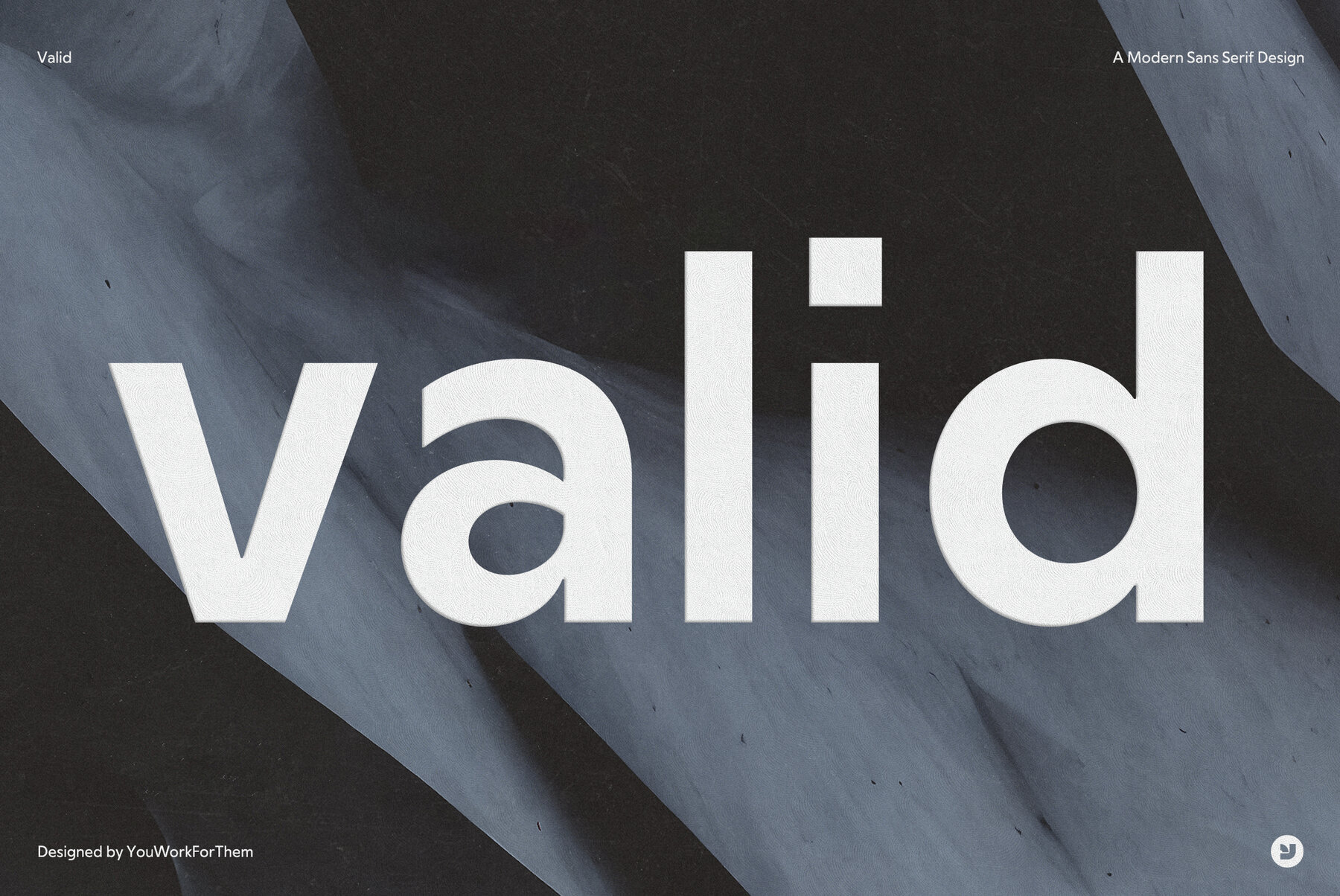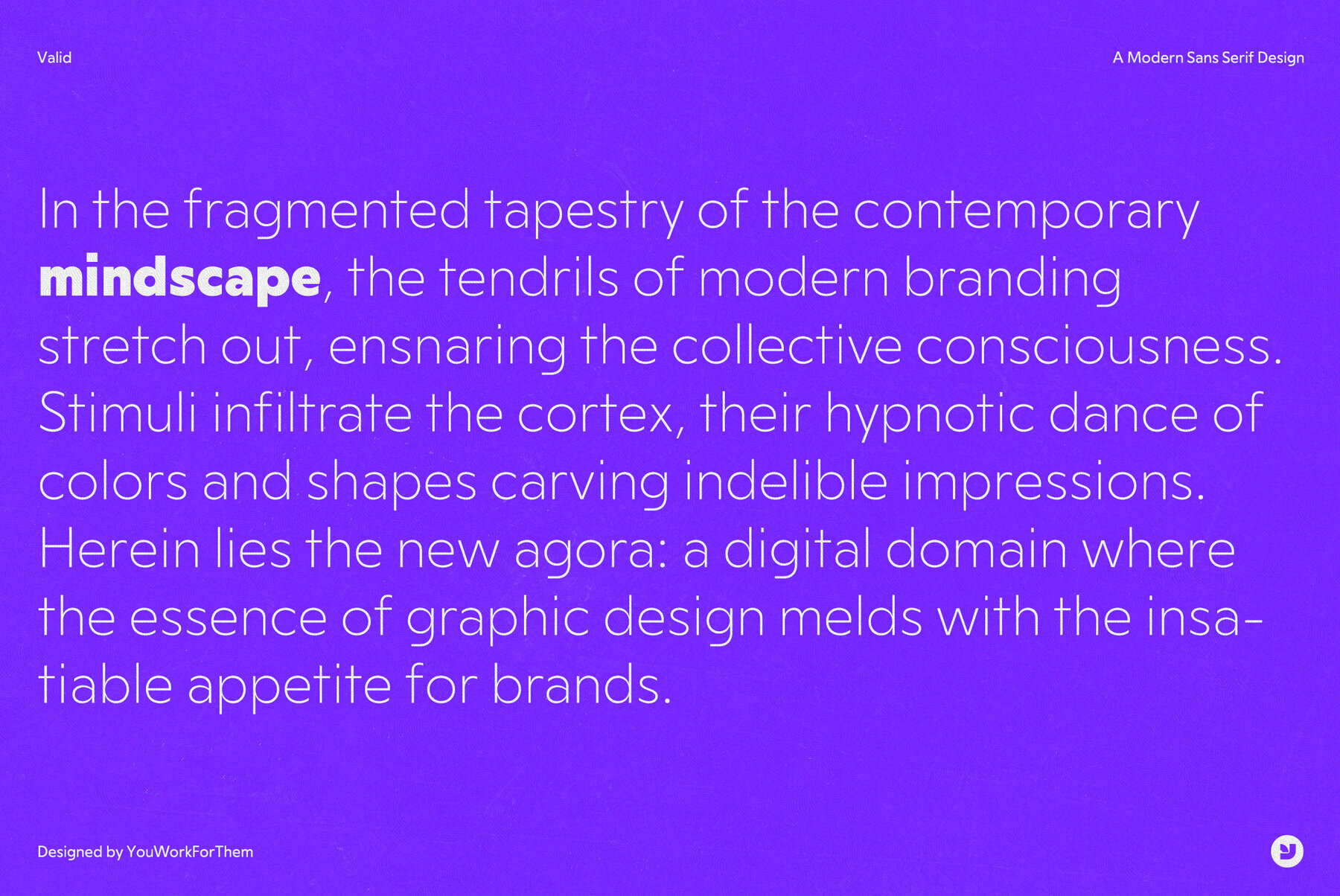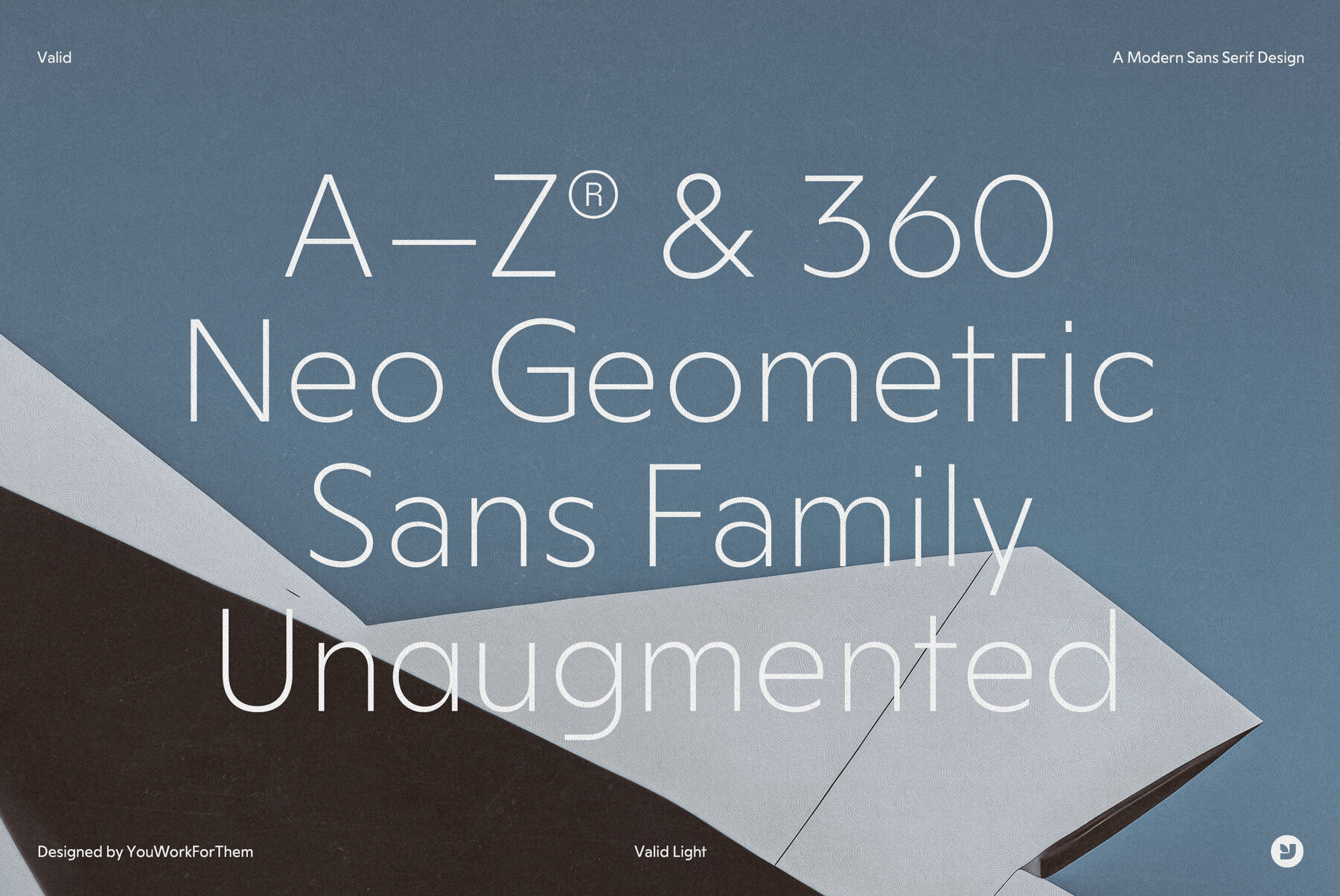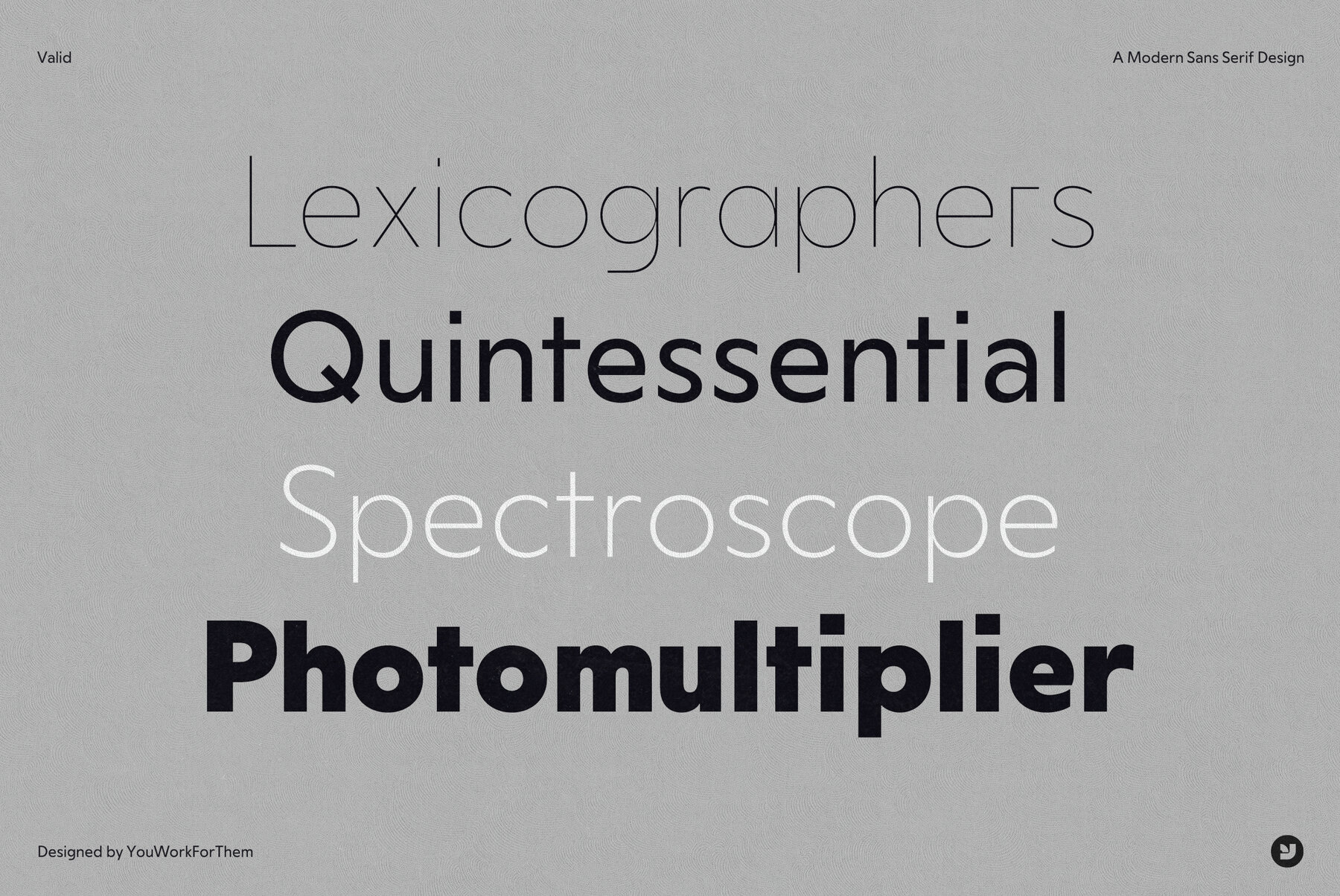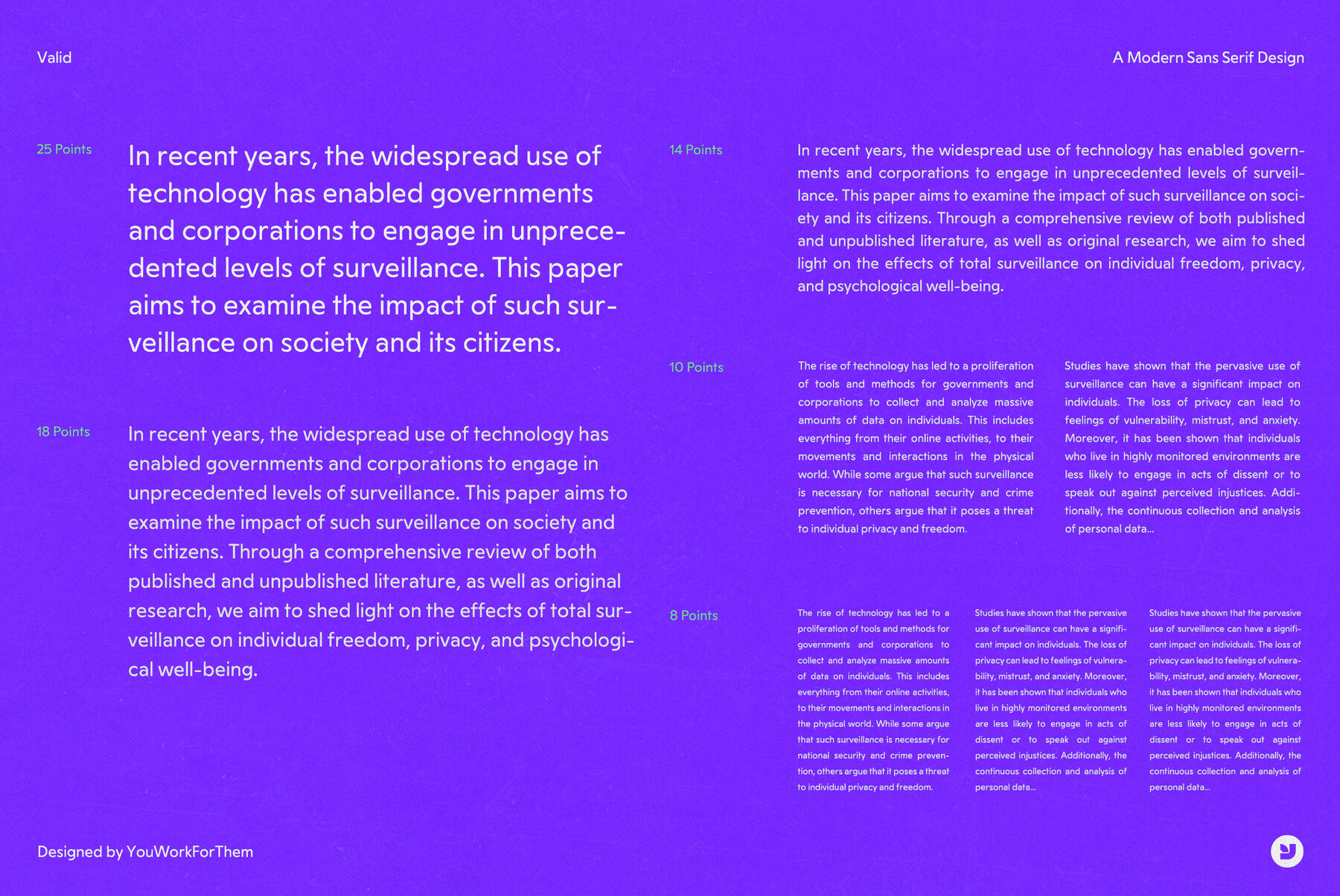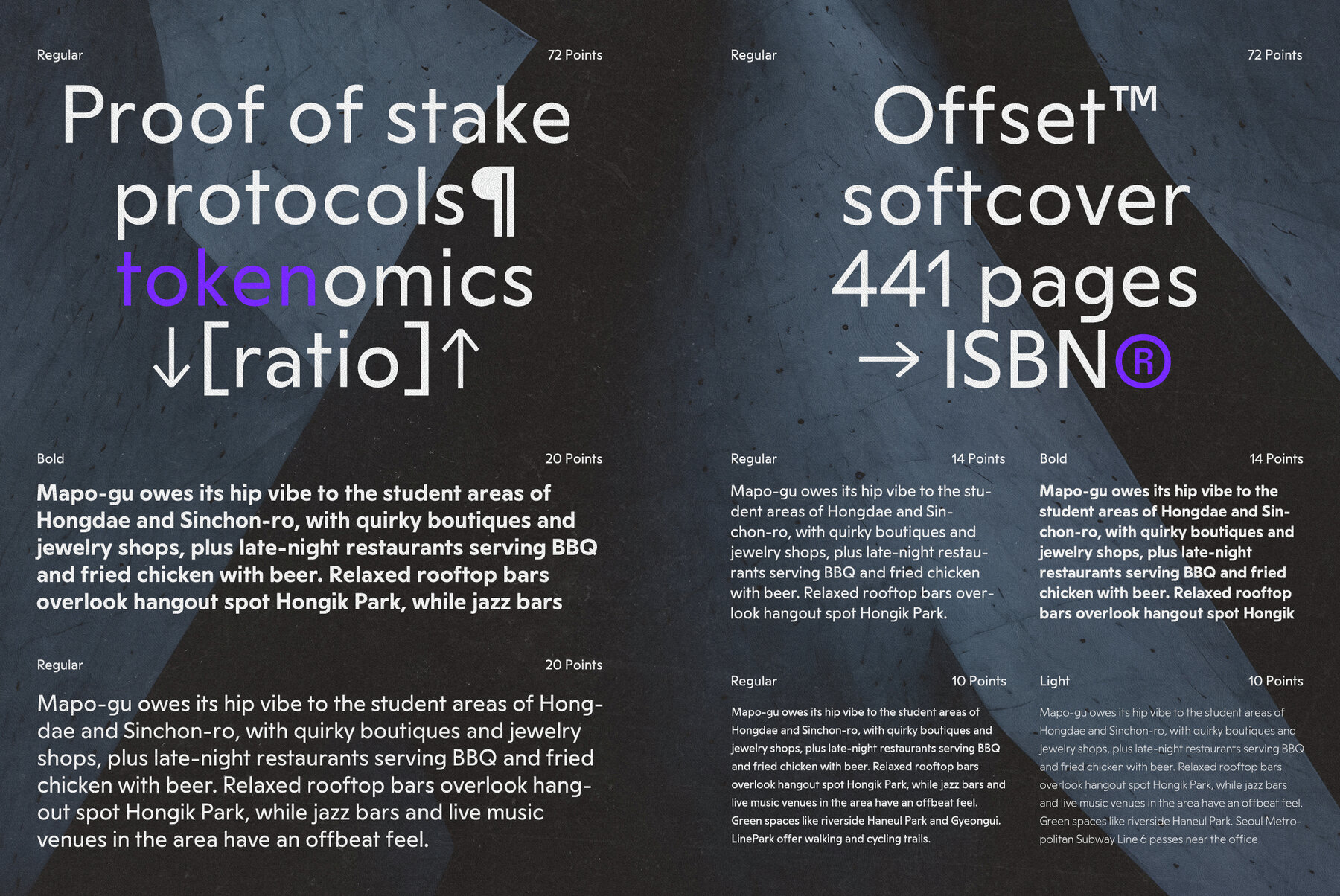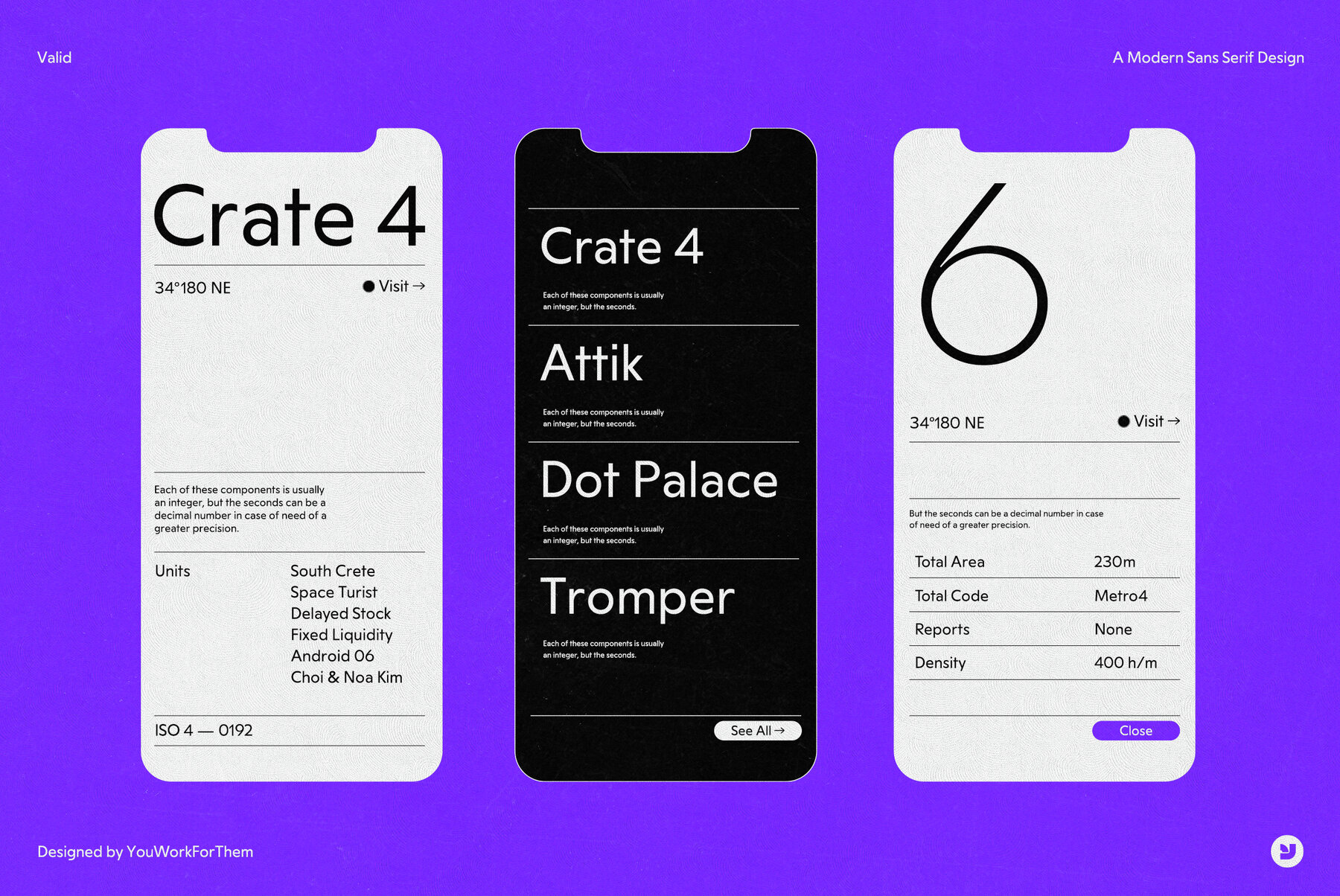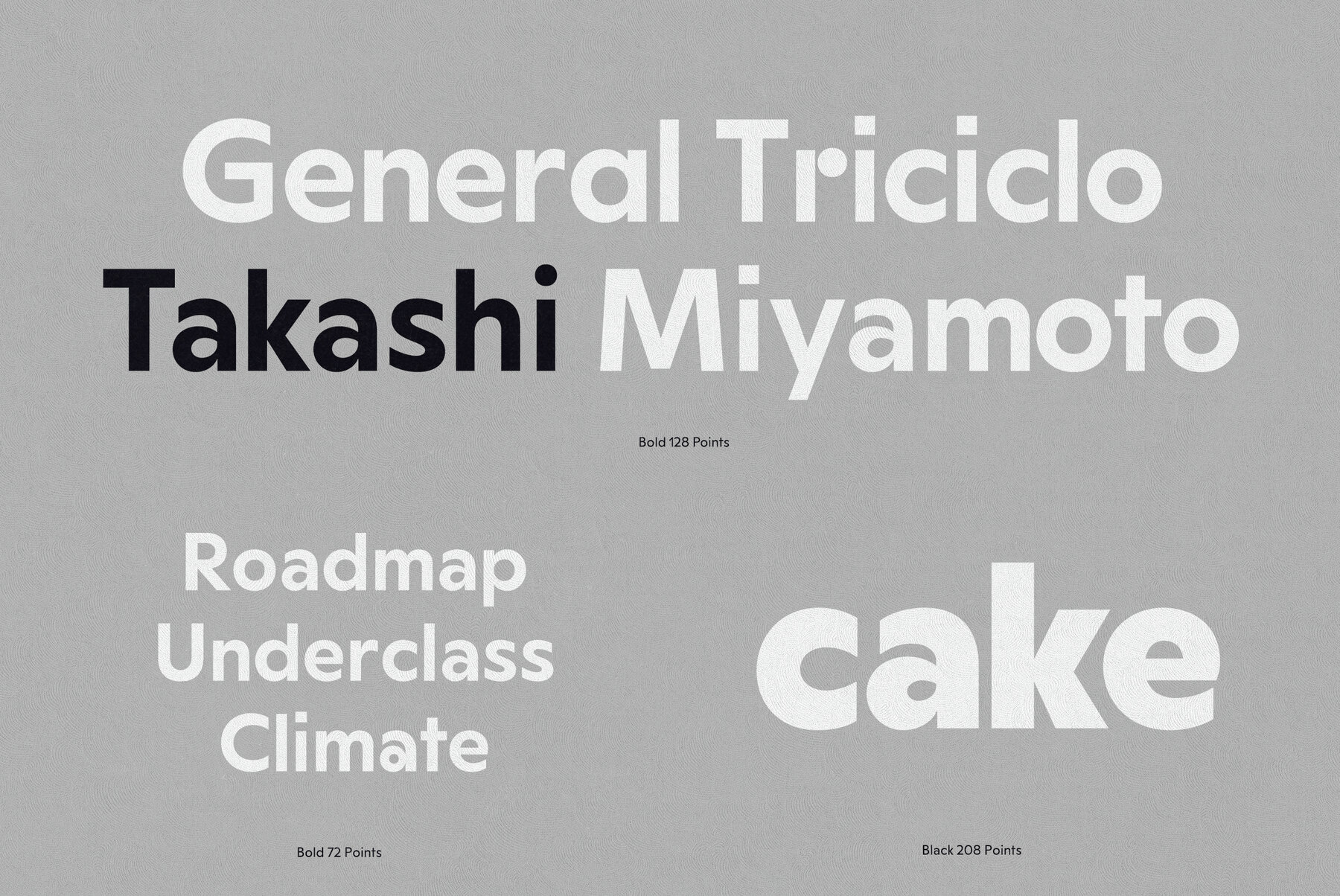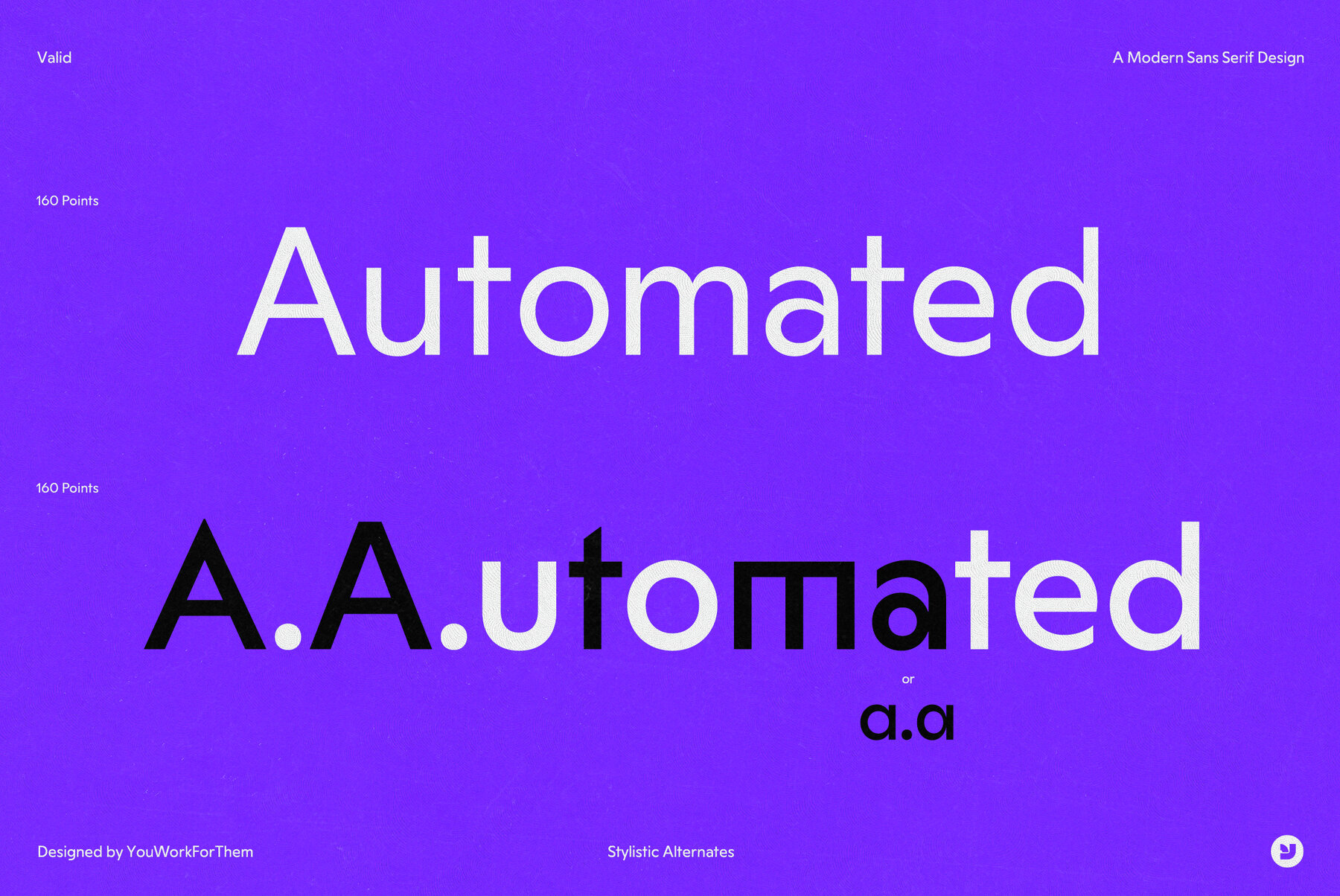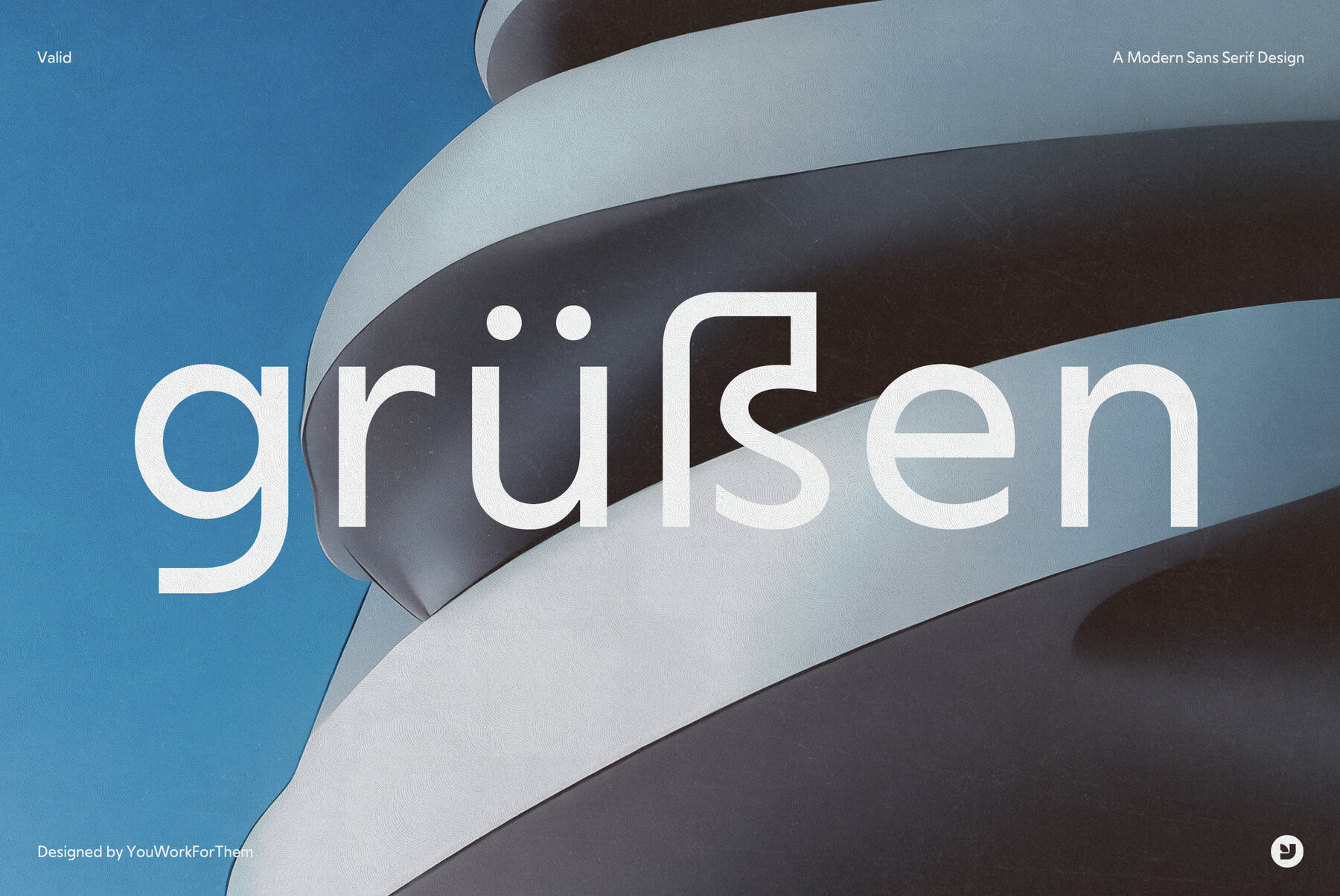
YWFT Valid Font
Valid is the latest addition to our font library, designed and published by YouWorkForThem. This all-new sans-serif typeface was created from the ground up, using Bauhaus design principles as its foundation but with a modern and geometric twist. The result is a versatile and stylish font that works seamlessly for a wide range of design projects, including mobile apps, social media marketing, content, headers, and display use. At YouWorkForThem, we believe that great design is the cornerstone of all creative projects. That's why we designed Valid with a unique blend of traditional and modern design principles. Our team of designers drew inspiration from the Bauhaus movement, which emphasized functionality and simplicity, to create a clean and minimalist design that is both elegant and efficient. We combined this classic design approach with a contemporary geometric twist, resulting in a typeface that is both timeless and modern. Valid is a versatile typeface that is perfect for use in digital design projects. It has been optimized for mobile apps, social media marketing, content, display use, headers, and more. The font has six important foundation styles, including Thin, Light, Regular, Medium, Bold, and Black which provide the most important foundation for great content design. With 720+ glyphs to start with, Greek and Vietnamese language support, and some really cool stylistic alternate glyph options to play with, all of which can be seen in the slideshow, you have plenty of creative options to make your designs stand out. We're taking a whole new approach with Valid, with the goal being on providing updates and enhancements, all with our early buyers getting these for free as we carry on with this journey. We're offering this font family at an early bird price for all 6 styles, with all buyers getting free updates on all future releases, which will possibly include language extensions, additional styles, additional OpenType features, and any other features we cook up. The more people that buy, the more budget we will have to put it right back into further developing this font. Valid is not only perfect for personal and standard design use, but we are also ready to help corporate brands find the proper license they need for their large volume projects. We offer customization options for corporate brands as well. Our development team is dedicated to ensuring that our clients receive the best service and quality for all their design needs, contact us today for more details.Introducing Valid: The All-New Sans-Serif Typeface for Modern Design
The Design Philosophy Behind Valid
The Versatility of Valid for Digital Design